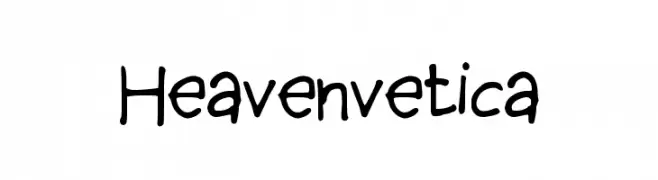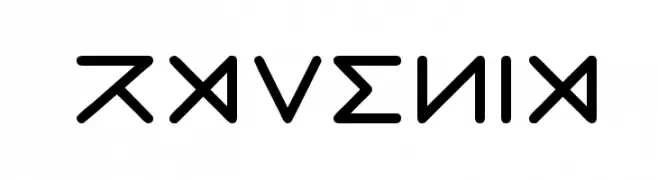
A playful handwritten font with rounded, irregular letterforms and a casual style.
A futuristic, angular font with a geometric and sci-fi inspired design.
A bold slab serif font with a modern, industrial aesthetic.
A pixelated, retro-style font with a digital, grid-like appearance.
A bold, hand-drawn font with dynamic, angular strokes.
A whimsical, hand-drawn font with tall, narrow letters and a playful style.
A bold, brush-style font with dynamic, textured strokes.
A lively, handwritten font with bold, fluid strokes.
A bold, distressed font with a grunge, splattered ink appearance.
A bold, outlined font with a playful and cartoonish style.